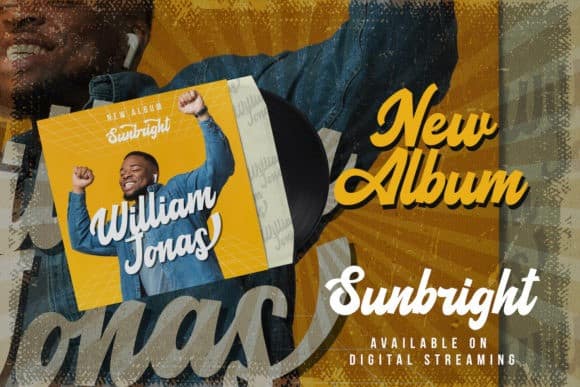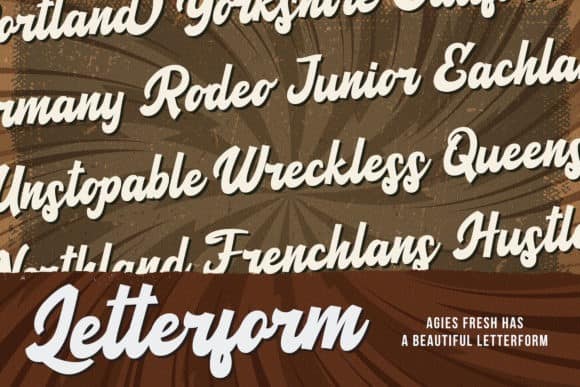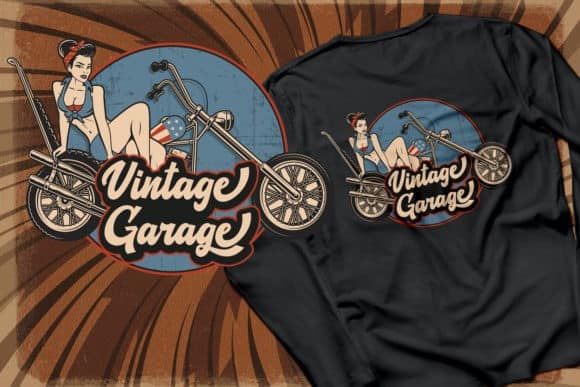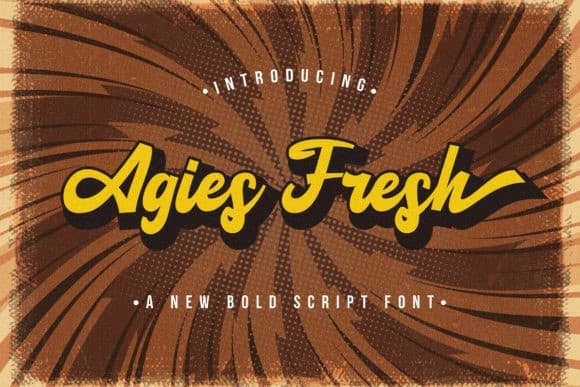
Agies Fresh Script Font
Hello friend. Agies Fresh Script Font is vintage bold script font was very inspired from modern vintage and retro style, Made from font designer named StringLabs. Hellowin Serif Font is curved, rounded, and has an unique vintage style, that is perfect for branding. You can use it as a logo, badge, insignia, packaging, headline, poster, t-shirt/apparel, greeting card, and wedding invitation.